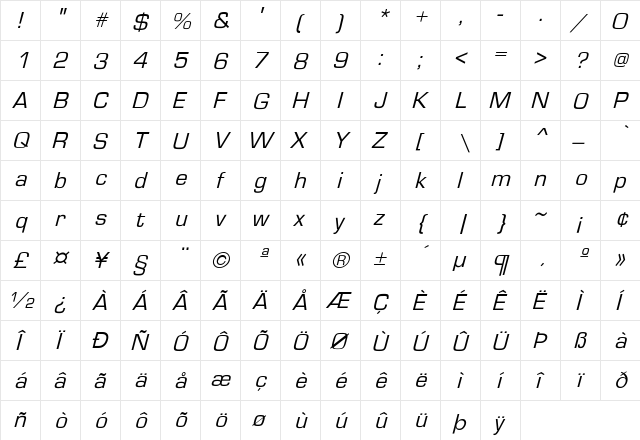
EurostileObl-Normal Regular
Design Context for EurostileObl-Normal Typeface
EurostileObl-Normal offers clean, dependable letterforms without strong stylistic allegiance, making it a practical choice for designers who need flexibility.